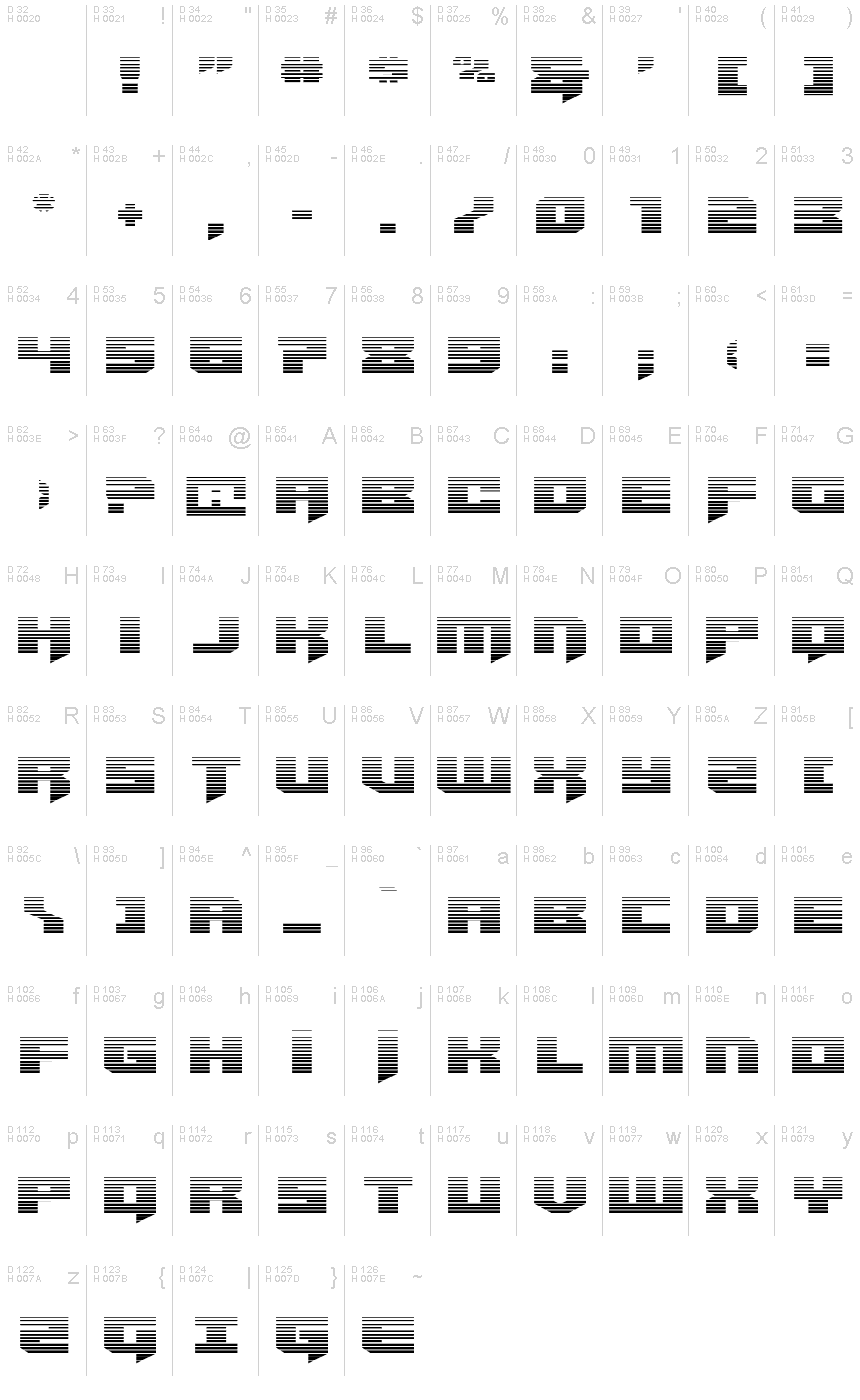
Bridge OFFicer Straight Grad
Bridge Officer Straight Grad, a commanding member of the Bridge Officer font family by Iconian Fonts, stands out with its techno style and extra-bold weight. This display typeface boasts an extra-expanded width that makes a robust visual statement. Its striking lines and structured form convey a futuristic aesthetic that is both clean and assertive, perfect for projects that require a touch of modernity and strength.
The font's linear elements suggest speed and precision, ideal for thematic content related to technology, science fiction, or any creative venture seeking to capture the essence of advancement and efficiency. Bridge Officer Straight Grad's distinctive character can enhance titles, headers, logos, and any graphical element where clarity of message must merge seamlessly with impactful design.